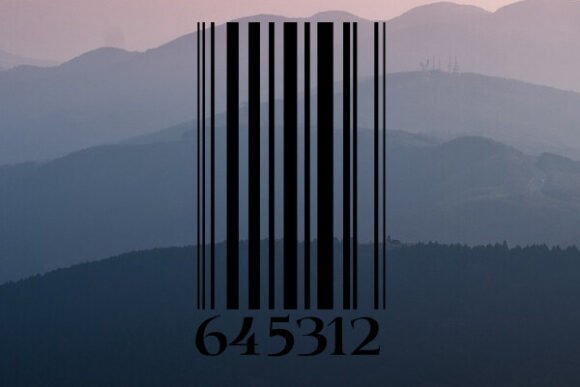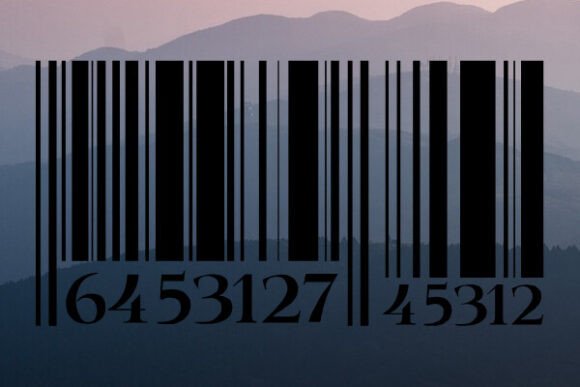
Unlocking Creativity with Barcode Font: Elevate Your Designs with a Unique Touch
In the world of design, fonts play a pivotal role in conveying messages, evoking emotions, and adding personality to creative projects. Among the myriad of fonts available, Barcode Font stands out as a stylish dingbat that can give your designs a distinctive edge. Whether you’re working on posters, flyers, t-shirts, or any other creative project, Barcode Font is an excellent choice to make your work stand out. In this article, we’ll delve into the features, uses, and benefits of Barcode Font, and explore how it can become an indispensable part of your design toolkit.
What is Barcode Font?
Barcode Font is a unique dingbat font that mimics the aesthetic of barcodes but with a stylish twist. Unlike traditional barcodes used for scanning and encoding data, Barcode Font is designed for creative applications. It allows designers and crafters to add a touch of industrial chic, modernity, and quirkiness to their projects. The font features lines and bars that can be customized to create a wide range of design elements, from simple text decorations to complex graphical representations.
Key Features of Barcode Font
• Versatility: Barcode Font can be used across various design projects, including but not limited to posters, flyers, t-shirts, stickers, and digital graphics.
• Customization: The font allows for a high degree of customization. You can adjust the thickness of the bars, the spacing between them, and even create unique patterns by combining different elements.
• Scalability: The font remains clear and legible at various sizes, making it suitable for both large-scale posters and smaller, detailed designs.
Creative Applications of Barcode Font
The creative potential of Barcode Font is vast. Here are some ideas to get you started:
• Posters and Flyers: Add a modern edge to your promotional materials with eye-catching barcode-inspired text and decorations.
• T-Shirts and Apparel: Create unique and stylish designs for clothing and accessories that stand out with Barcode Font.
• Digital Graphics: Use the font in social media posts, blog headers, and website elements to give your digital presence a distinctive look.
• Crafting and DIY Projects: Barcode Font can also be used in scrapbooking, card making, and other DIY crafts to add a contemporary flair.
Tips for Using Barcode Font Effectively
To maximize the impact of Barcode Font in your designs, consider the following tips:
• Experiment with Colors: While traditional barcodes are typically black and white, Barcode Font can be used in any color. Experiment with different palettes to match your brand or design theme.
• Mix and Match: Combine Barcode Font with other fonts to create contrast and add depth to your designs.
• Play with Patterns: Use the font’s design elements to create intricate patterns and textures that add interest to your projects.
Barcode Font is more than just a dingbat font; it’s a tool for designers and crafters to push the boundaries of creativity. Its versatility, customization options, and ease of use make it an excellent addition to any creative toolkit. Whether you’re looking to add a modern touch to your designs, create eye-catching promotional materials, or simply explore new creative avenues, Barcode Font is an ideal choice. So, why settle for ordinary when you can make your designs stand out with a unique barcode-inspired twist?